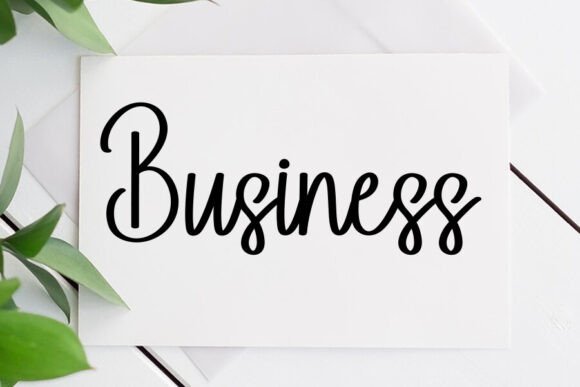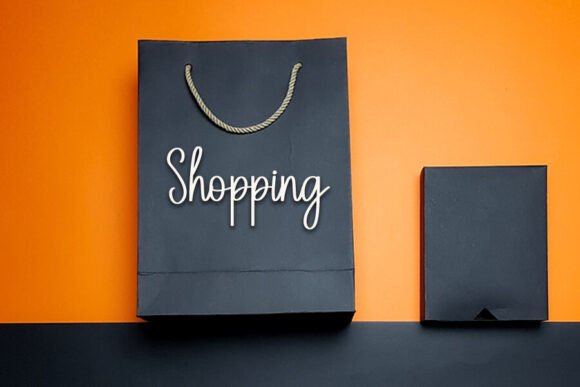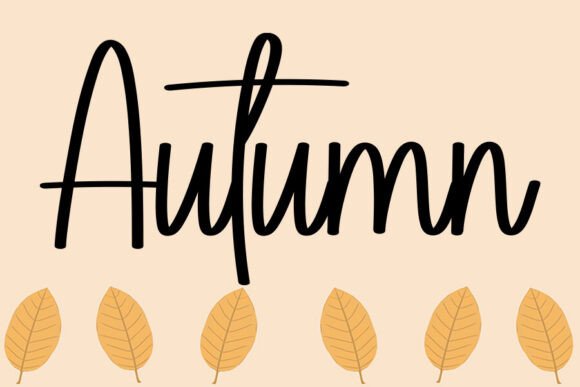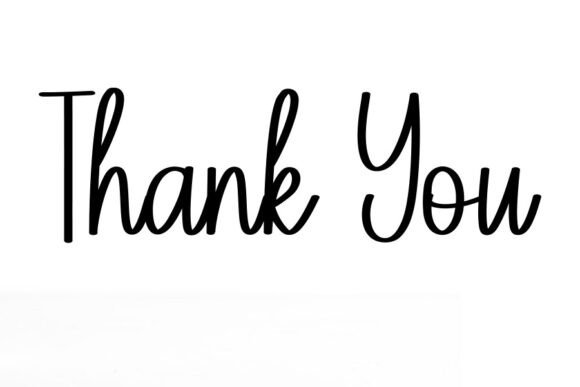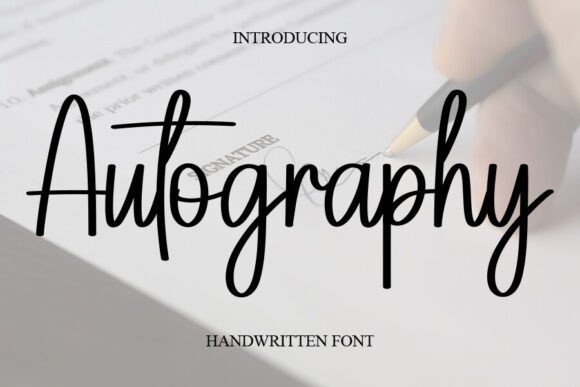
The Joy of Handwritten Perfection: Introducing Autography Font
There’s nothing quite like the thrill of creating something beautiful from scratch. The scribble of a pen on paper, the hum of a computer as you bring your ideas to life – it’s a feeling that never gets old. For designers, it’s this spark of creativity that drives us to push the boundaries of what’s possible.
Enter Autography Font, a sweet and cursive handwritten font that’s sure to add a touch of magic to your next project. With its gentle curves and elegant flair, Autography Font is perfect for branding, logo design, and even wedding invitations. Whether you’re working on a fashion lookbook or a marketing campaign, this font is sure to bring a sense of joy and romance to your designs.
Autography Font Key Features
- Unique Characteristics: Autography Font features a unique, handwritten style with a mix of cursive and print elements, giving it a personal and expressive feel.
- Kerning and Ligatures: The font includes advanced kerning and ligature pairs, ensuring smooth and even spacing between letters for a professional look.
Autography Font Review
Overall, I’m impressed with the Autography Font, a beautiful script font designed to evoke a sense of elegance and sophistication. ✨ Its flowing lines and organic feel make it perfect for adding a touch of personality to your designs.
Here are some of the things that I love about Autography Font:
- ✨ Elegant and sophisticated feel: Autography Font exudes refinement and poise, making it ideal for high-end designs.
- ✨ Versatile: From wedding invitations to restaurant menus, Autography Font can be used in a variety of contexts.
- ✨ Beautiful ligatures: The font’s ligatures add a touch of whimsy and playfulness, making it stand out from other script fonts.
- ⚠️ Limited language support: Autography Font may not be suitable for languages that require a wide range of character sets.
- ⚠️ May be difficult to read at small font sizes: The font’s flowing lines and organic feel can make it challenging to read at very small sizes.
Overall, I think Autography Font is a great choice for designers who want to add a touch of elegance and sophistication to their designs. While it may have some limitations, its beautiful design and versatility make it a valuable addition to any designer’s toolkit.
The Autography Font is ideal for:
– Creating custom logos or branding materials
– Adding a personal touch to presentations or documents
– Designing social media posts or flyers with a unique and handwritten style
– Creating custom quotes or sayings with a handwritten font